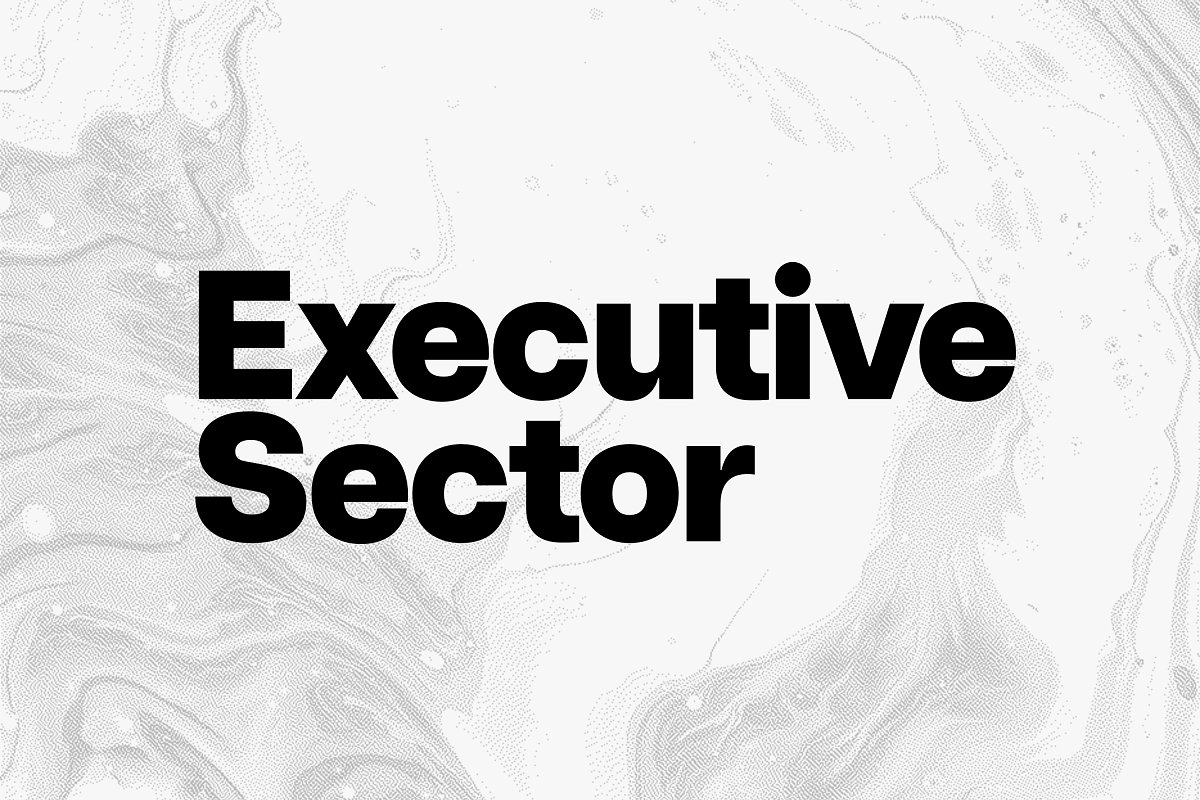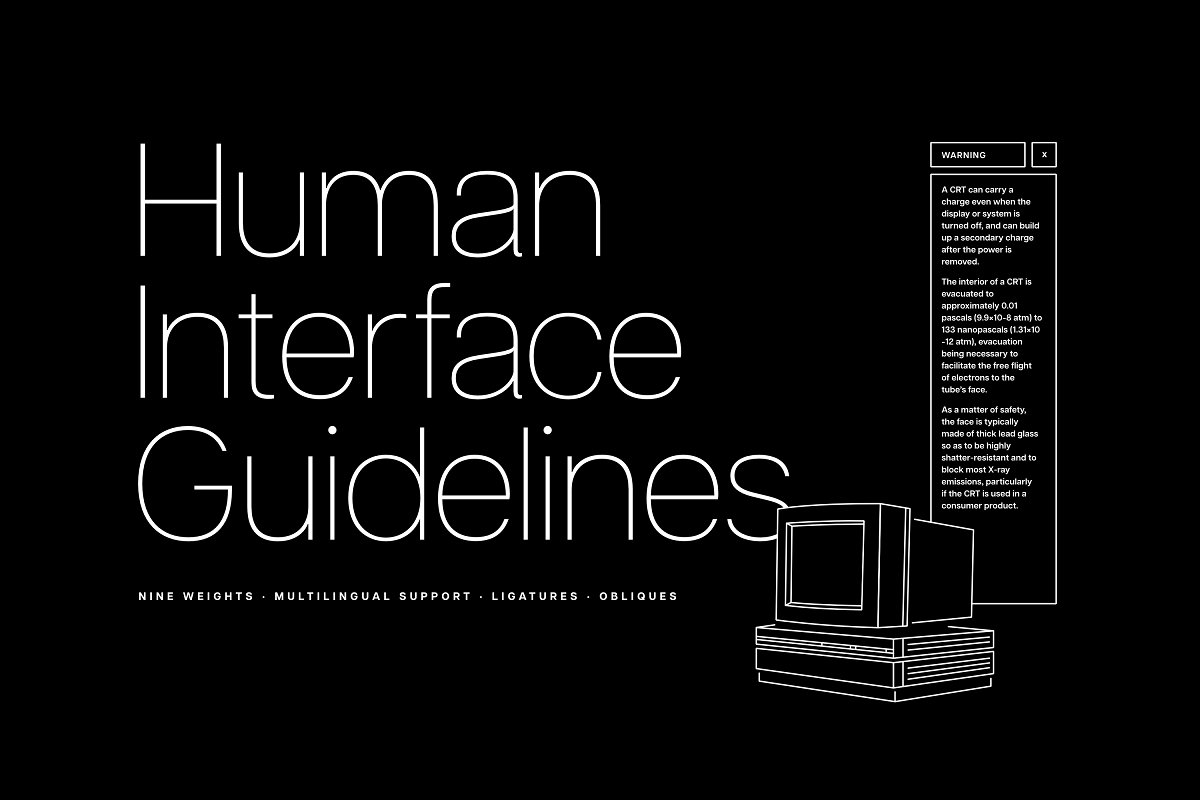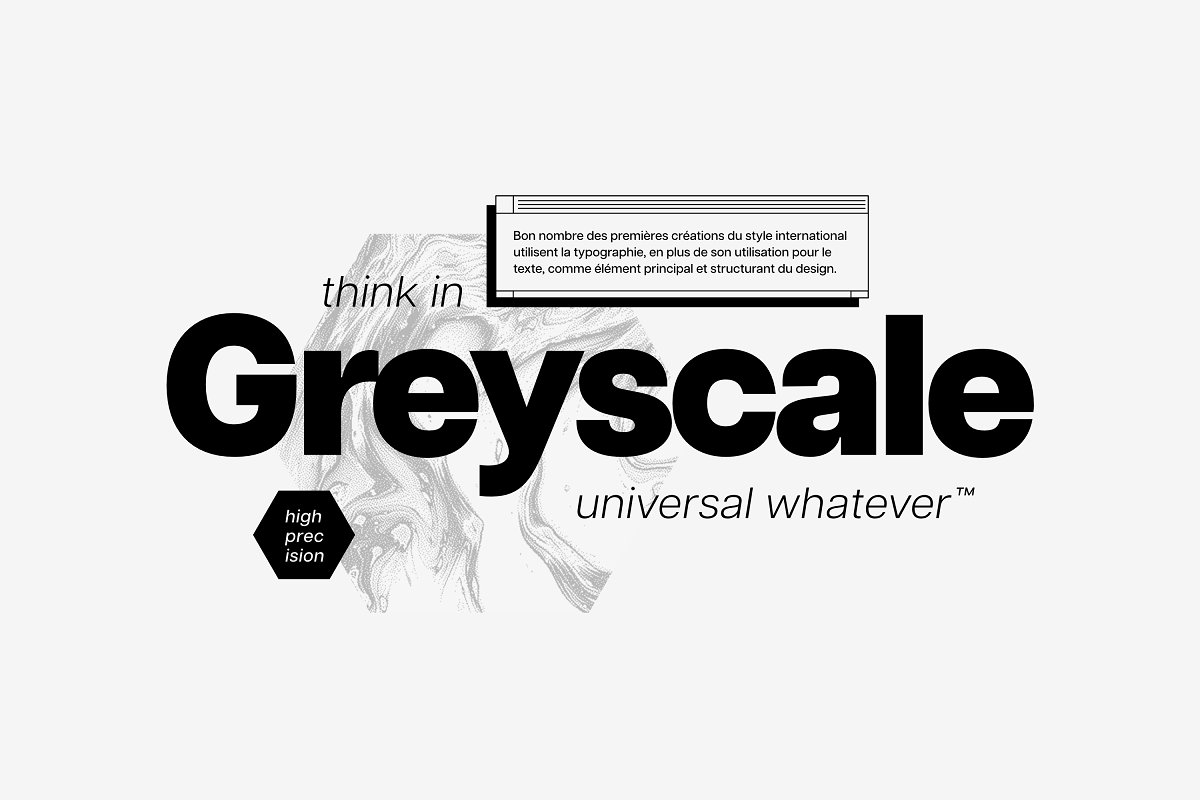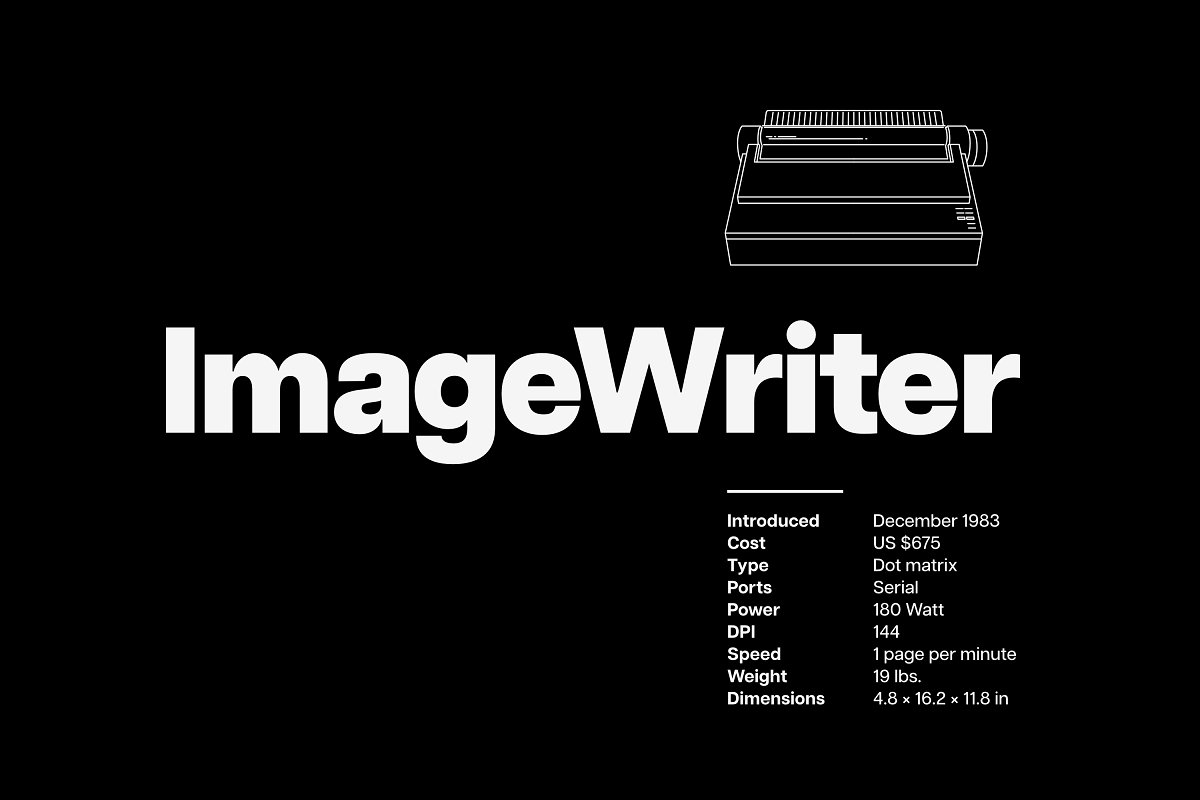
About the Articulat CF midcentury sans serif Font
Articulat© CF is a streamlined, updated take on midcentury type design, Strong, sharp, and well-spoken, Articulat was built from scratch to be bold, clean, and clear, Version 3 is a major update with dozens of improvements, Every glyph has been worked over for a greatly improved rhythm and balance, plus general bug fixes and kerning touchups, Ten weights and obliquesLigatures, fractions and alternate glyphsMultilingual support (Latin and Cyrillic, including Vietnamese)Long-term support: updates, new features and bug fixes to my fonts will always be freeIf you have any questions about licensing, need help with a typeface, or would like to request a new feature, contact me at connary